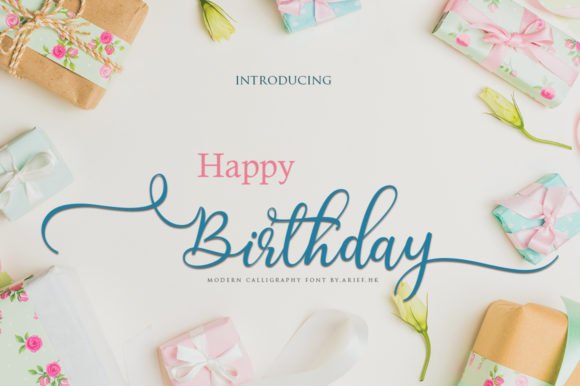
Unleashing Creativity with the Birthday Font
There’s something magical about the moment a creative idea strikes – the rush of excitement, the spark of inspiration, and the thrill of bringing it to life. As designers, we’ve all been there, and it’s a feeling that never gets old. But what makes a project truly special is the attention to detail, the extra oomph that sets it apart from the rest. That’s where the Birthday Font comes in – a beautiful, elegant handwritten font that adds a touch of sophistication to any design.
Whether you’re working on a wedding invitation, a birthday card, or a branding project, the Birthday Font is the perfect choice. Its flowing, calligraphic script exudes class and style, making it a valuable asset for any designer looking to elevate their work. With its PUA encoding, you can access all the glyphs and swashes with ease, giving you complete control over your design. So why settle for ordinary when you can have extraordinary with the Birthday Font?
Birthday Font Key Features
- Font Style: Birthday Font is a cursive, handwritten font designed to resemble handwritten birthday messages.
- Unique Characteristics: The font features swashes, flourishes, and connected letters, giving it a playful and celebratory feel, perfect for birthday-themed designs.
Birthday Font Review
Overall, I found the Birthday Font to be a decent choice for celebratory designs. ✨ The font’s playful and whimsical feel makes it perfect for birthday invitations, party decorations, and other festive projects.
Here are some strengths of the font:
- ✨ The font’s bold and colorful appearance makes it visually appealing and attention-grabbing.
- ✨ The font’s versatility allows it to be used for a wide range of birthday-related designs, from casual to formal.
- ✨ The font’s high-quality design ensures that it looks great at various sizes and resolutions.
- ⚠️ The font may not be suitable for more formal or professional designs, as its playful feel may come across as unprofessional.
- ⚠️ The font may not be compatible with all font sizes and styles, which could affect its appearance in certain designs.
- ⚠️ The font may not be easily readable at very small sizes, which could make it difficult to use in certain applications.
Overall, I would recommend the Birthday Font for designers looking to create fun and festive birthday designs. While it may have some limitations, its playful feel and versatility make it a great choice for the right project.
Birthday Font: A Practical Application Guide
Tips for Getting the Most Out of Birthday Font
Here are some tips to get the most out of the Birthday Font:
- Use it for birthday invitations, party decorations, and other celebratory designs.
- Experiment with different font sizes, colors, and styles to create a unique look.
- Combine the Birthday Font with other design elements, such as images and graphics, to create a visually appealing design.
The Birthday Font is commonly used for:
- Birthday invitations and party decorations.
- Personalized birthday gifts and cards.
- Social media posts and birthday announcements.
- Choose a bold and colorful font from the Birthday Font collection.
Create a unique and festive birthday invitation that sets the tone for the special day. Use the Birthday Font to add a playful touch to the invitation’s text, such as the birthday person’s name, age, or a special message.
Project 2: Custom Birthday Social Media Post
Make your social media post stand out on the birthday person’s special day with a custom design featuring the Birthday Font. Use the font to create a fun and playful message that showcases the birthday person’s personality.